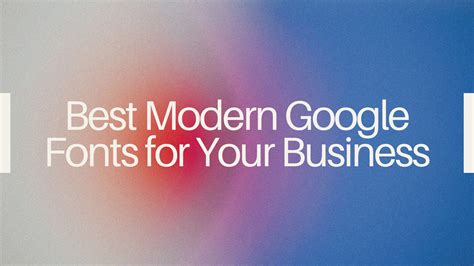
Best 31+ Modern Google Fonts Pack Ttf
I’ve spent hours scrolling through Google Fonts, only to freeze up when it’s time to actually design. Choice paralysis is real, especially when you need typefaces that work well together without bloating your site. That’s exactly why I started compiling my own collection. Having a reliable, offline repository using the Best 31+ Modern Google Fonts Pack Ttf completely changed how I approach local development. It removes the guesswork and keeps my design system consistent.
Why You Need the Best 31+ Modern Google Fonts Pack Ttf in Your Toolkit
Evaluating the Best 31+ Modern Google Fonts Pack Ttf
Not all typefaces are created equal. Some look gorgeous on a high-resolution monitor but fail completely on older, low-DPI screens. When I tested this pack, I looked for high legibility, varied weights, and distinct character forms that prevent ambiguity. You want a mix of geometric sans-serifs for UI elements and versatile serifs for editorial content. Here’s a quick breakdown of a few standouts I rely on frequently.
Font Name Primary Use Case Recommended Weight
Inter UI and body text 400, 600
Playfair Display Headlines and branding 700, 900
Space Grotesk Tech and startup interfaces 500, 700
Merriweather Long-form readability 400, 700
Top Contenders I Actually Use
Here’s the thing: a pack of 31 fonts is useless if half of them look identical. I’ve narrowed down the standouts that offer true versatility for client projects.
• Inter: The undisputed king of UI. It was specifically designed for computer screens.
• Manrope: A fantastic modern sans-serif with a bit of personality.
• Space Grotesk: Perfect when you need a slightly technical, modern vibe.
• Merriweather: My go-to serif for long-form readability.
Pairing Inter or Manrope with a strong serif like Merriweather creates a classic contrast. This is where it gets interesting: you don’t need 100 fonts. You need the right 31.
Building a reliable design system starts with your typographic foundation. Having a local, well-tested collection means you spend less time searching and more time designing. Grab a curated pack, test how these typefaces render on your actual target devices, and commit to a solid pairing. Your future self will thank you when the deadline hits.